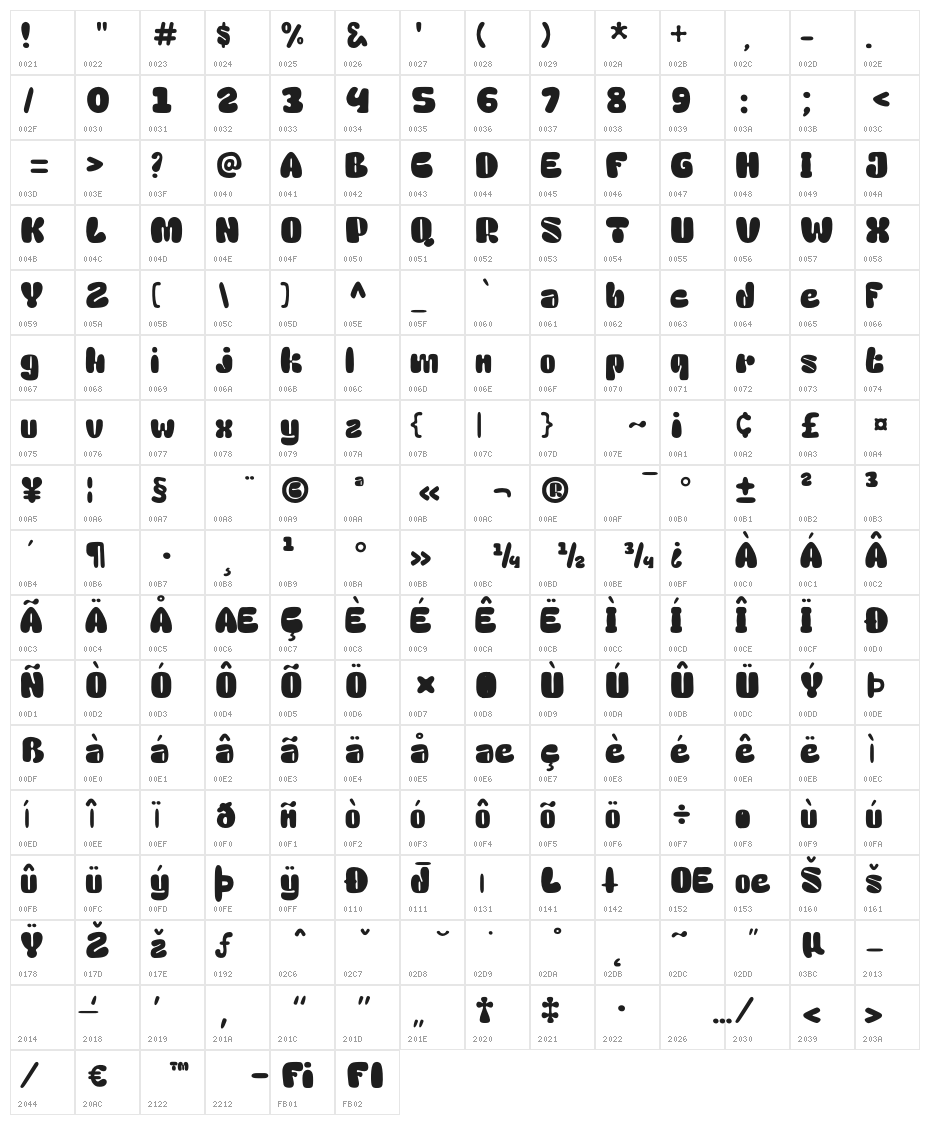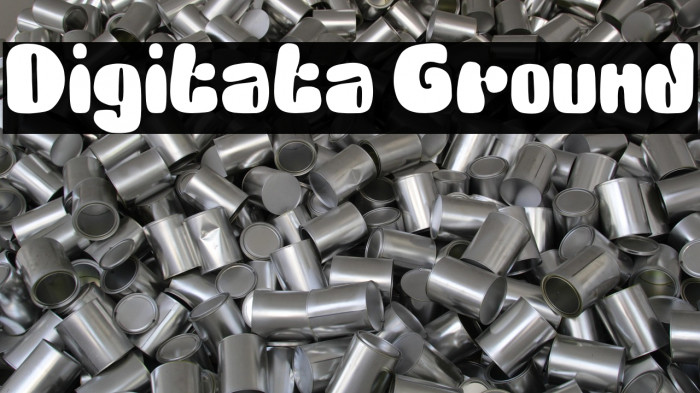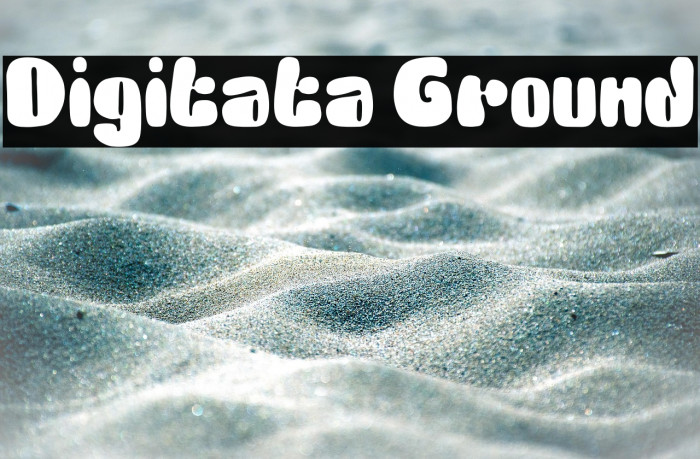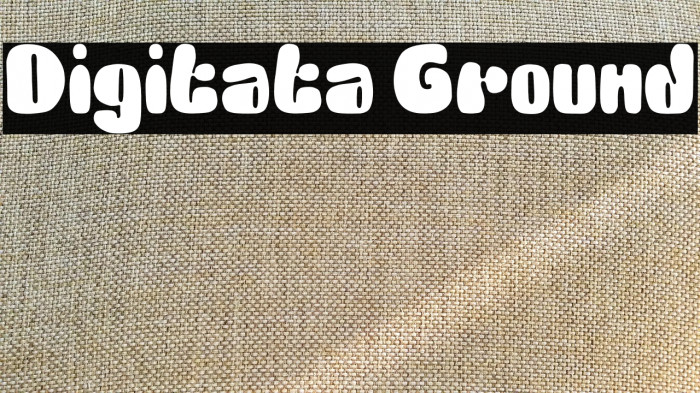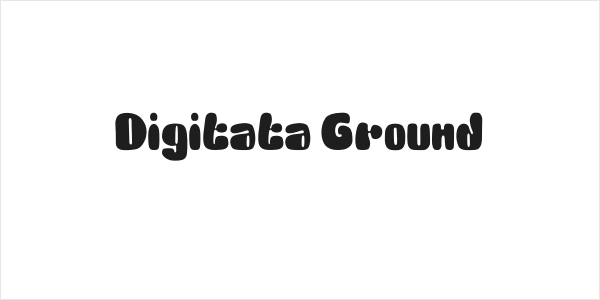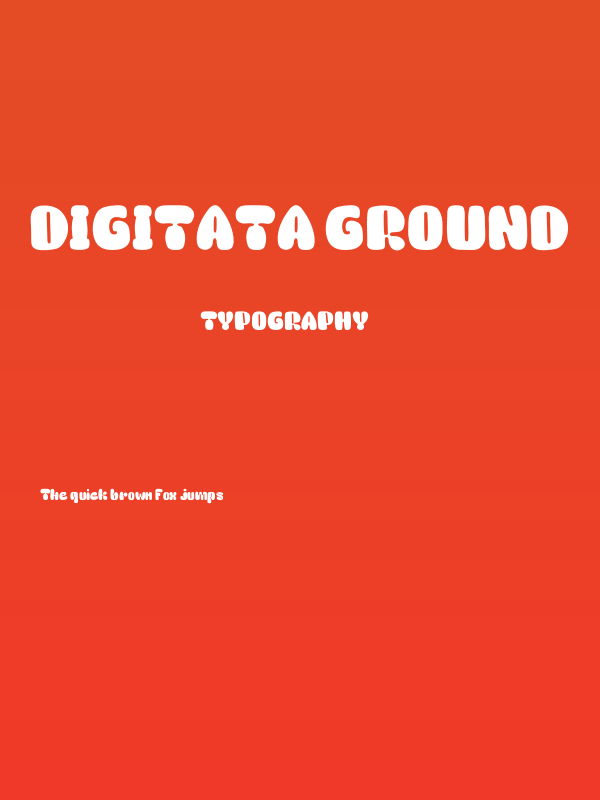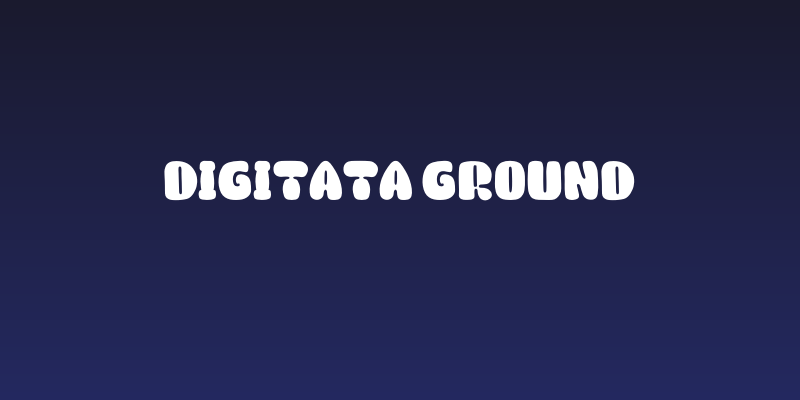
Digitata Ground Font
| 全体的なスタイル | Playful, Fun, Creative |
| おすすめプロジェクト | Ideal for children's books, playful branding, posters, and creative advertisements. |